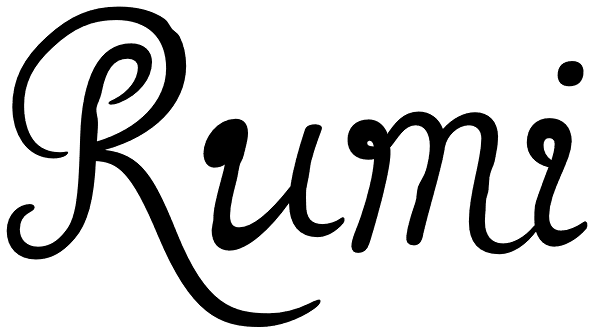
Rumi
Rumi is a script font with organic and natural feel, designed to look as true handwriting. It has a calligraphic touch and shaky, unpredictable execution, being very clear and readable at the same time. In order to achieve realistic look, Rumi...